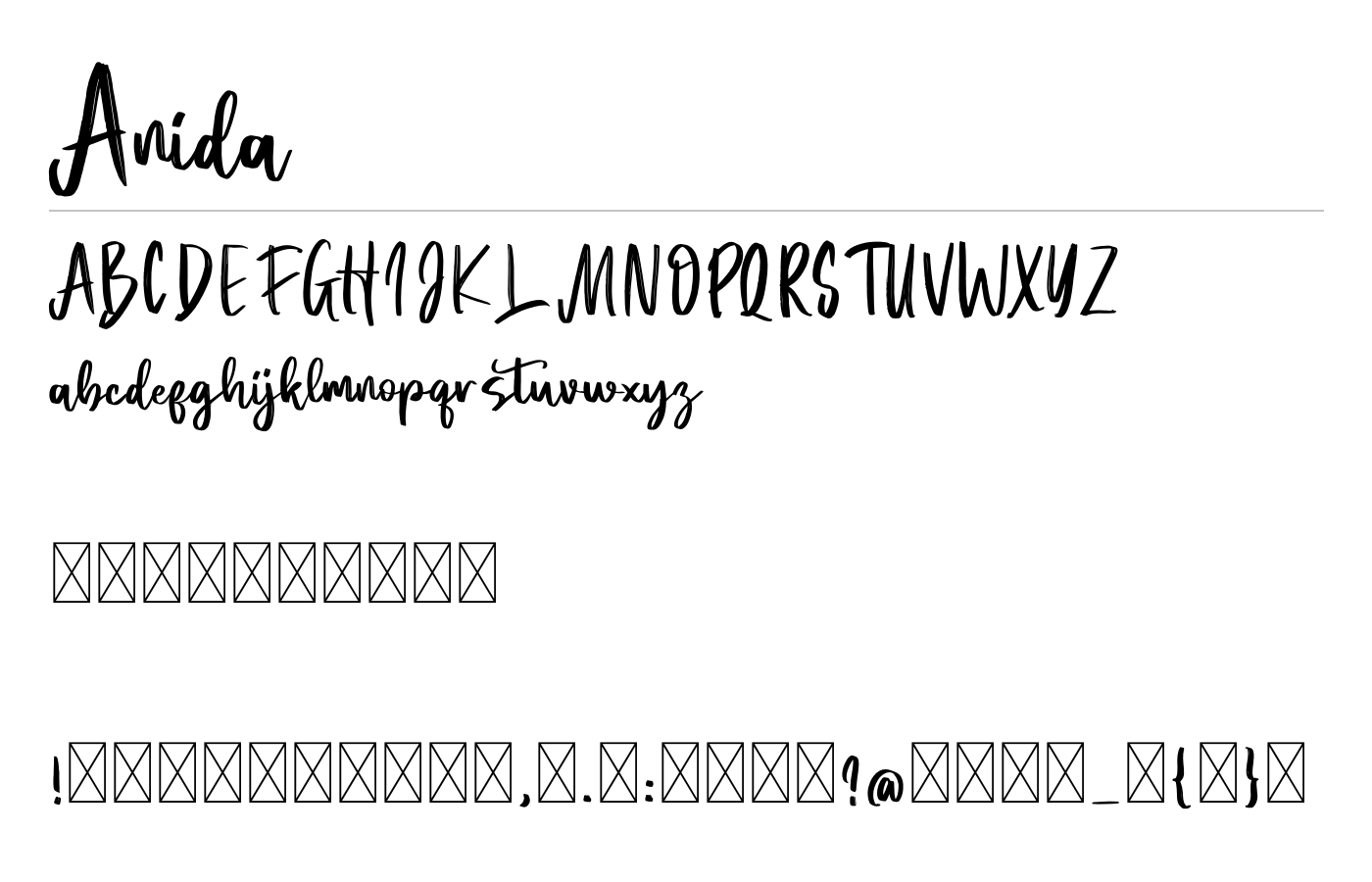
Anida is a lively and modern handwritten script font characterized by its bold, brush-like strokes and fluid, casual style. It combines a playful yet confident personality with its tall, slightly condensed letterforms and distinctive irregularities, making it perfect for branding, logos, invitations, and creative headlines that seek a personal, artistic touch. This font brings warmth and approachability to designs while maintaining a chic and contemporary feel.
Anida Font
About Anida Font